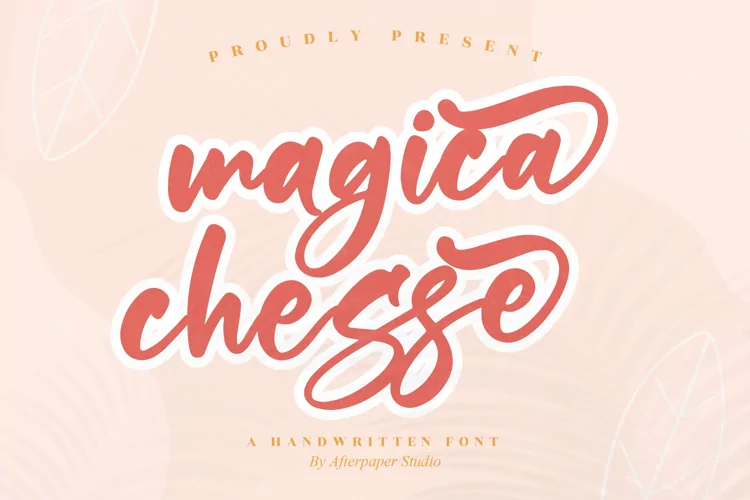
magica chesse Handwritten Font
magica chesse
magica chesse italic
magica chesse – Handwritten Font , from Afterpaper Studio, suitable for any projects such as: logos, branding projects, homeware designs, product packaging, mugs, quotes, posters, shopping bags, t-shirts, book covers, name card, invitation cards, greeting cards, label, photography, watermark, special events, and all your other lovely projects that need a beautiful script taste.